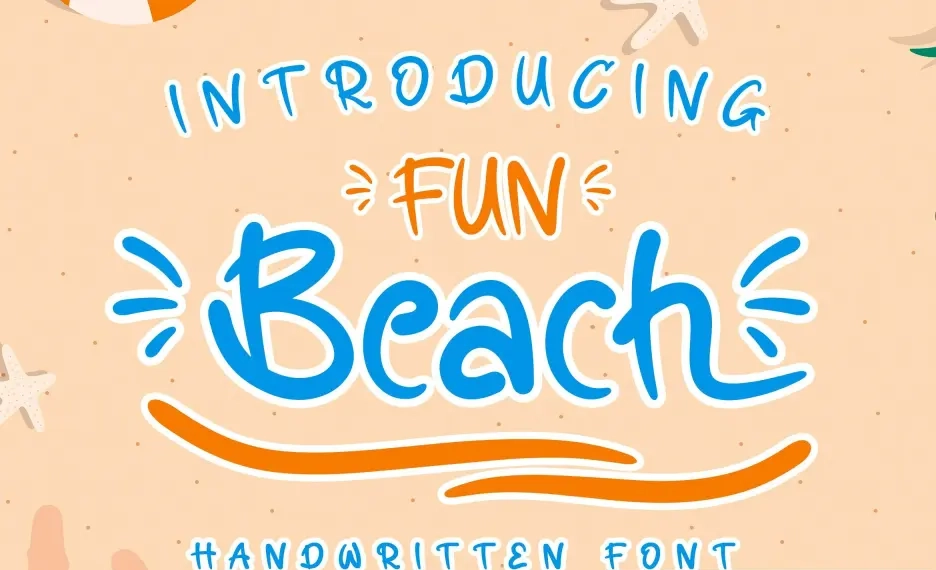
Introducing the Fun Beach font, a playful handwritten typeface that brings a touch of whimsy to your projects. With its unique character and charming style, this font is perfect for a variety of applications.
- Playful handwritten style
- Supports multilingual characters
- Weights: Regular, Bold
- Ideal for branding, logos, and invitations
- Great for web design and digital media
- Perfect for print materials like posters and flyers